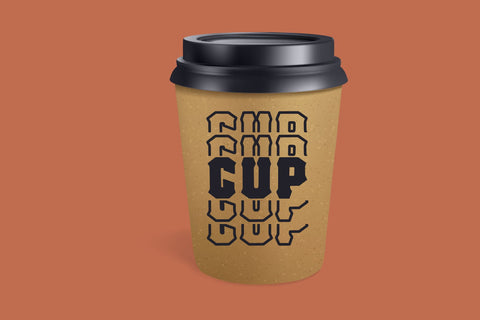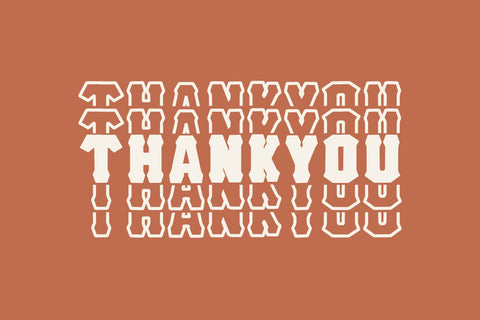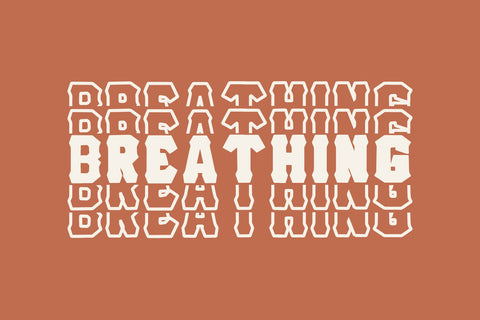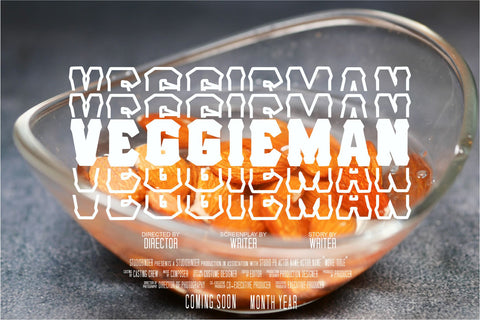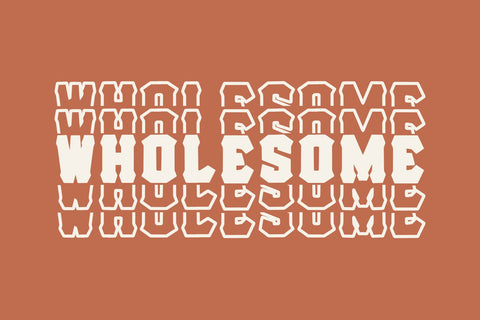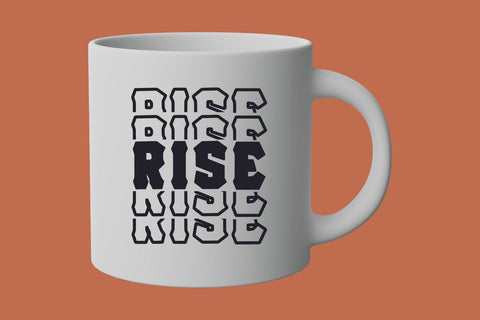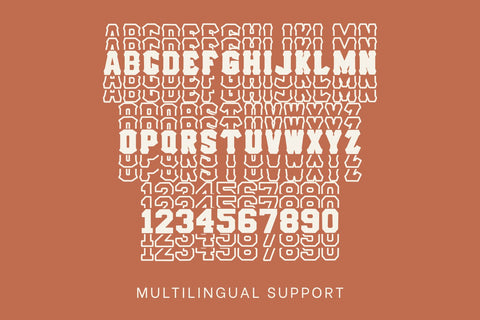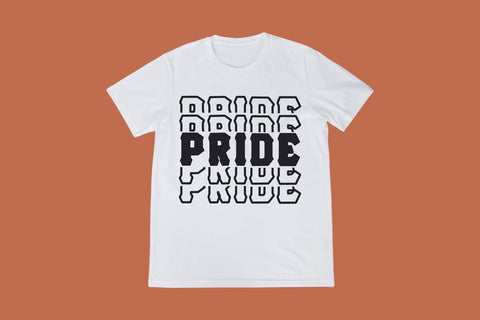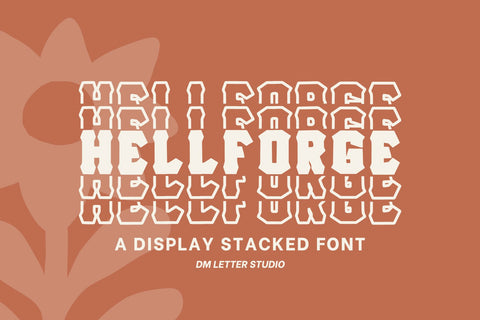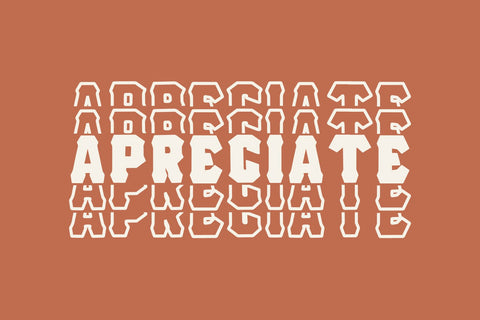
Hell Forge Stacked Font
Meet Hell Forge Stacked Font
Hell Forge Stacked Font is a bold stacked display font built for tight spaces and hard impact. Letters stand tall, tight, and readable, so short words turn into badge-like marks. Because each line stacks cleanly, names, dates, and team initials fit on tags, sleeves, caps, and thumbnails without losing power. Therefore, you can use it for jerseys, tool labels, biker patches, gaming graphics, and rugged product logos. Moreover, the geometry loves outlines, metallic foils, and laser cuts, which help your mockups look premium right away.
Why Hell Forge Stacked Font works
You need compact titles that still feel strong. This font gives you vertical rhythm with sharp edges and open counters. As a result, long surnames stay tidy, numbers align, and quick variants publish in minutes. Plus, the forms stay crisp on vinyl, screen print, embroidery, mockups, and engraving.
Styling tips for stacked titles
Keep initials large and let negative space breathe.
Add double strokes or stitch edges for a patch vibe.
Use inner lines for depth on dark fabric.
Pair with a clean geometric sans for captions and pricing.
Clean paths tuned for vinyl, laser, foil, and print
Who it’s for
Makers and teams who want rugged identity with zero fuss: garages, gyms, esports, clubs, and gift shops. When space is tight and impact matters, Hell Forge Stacked delivers compact power.